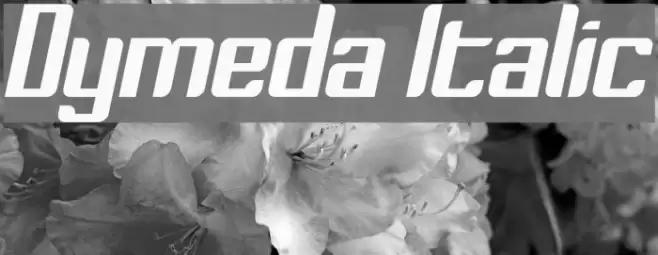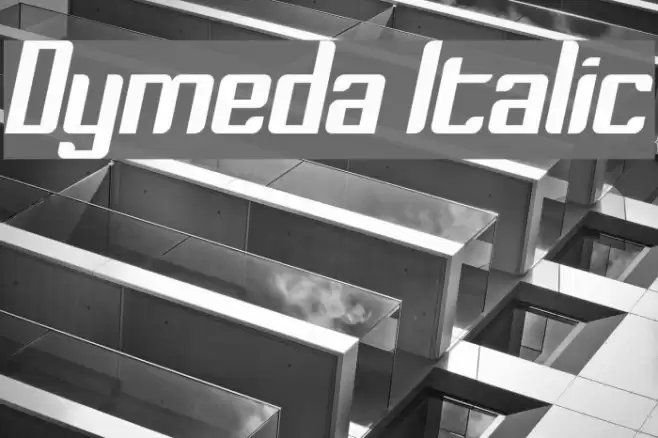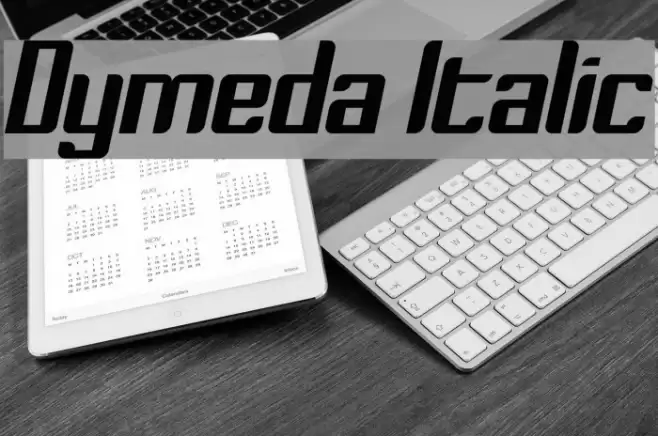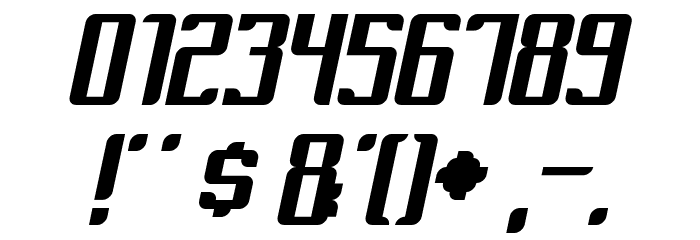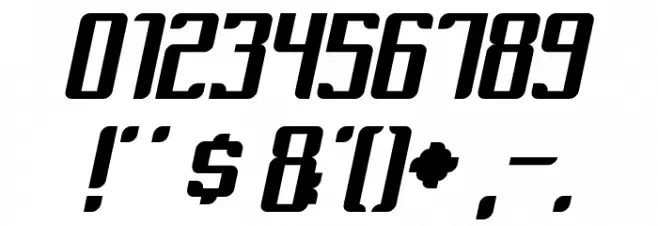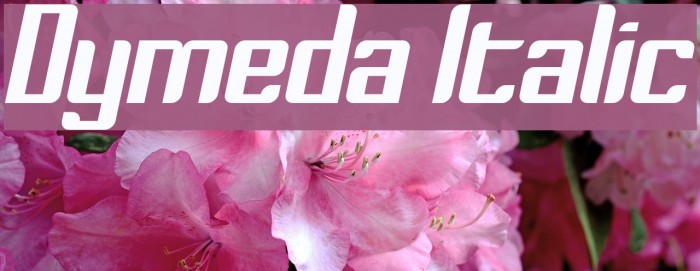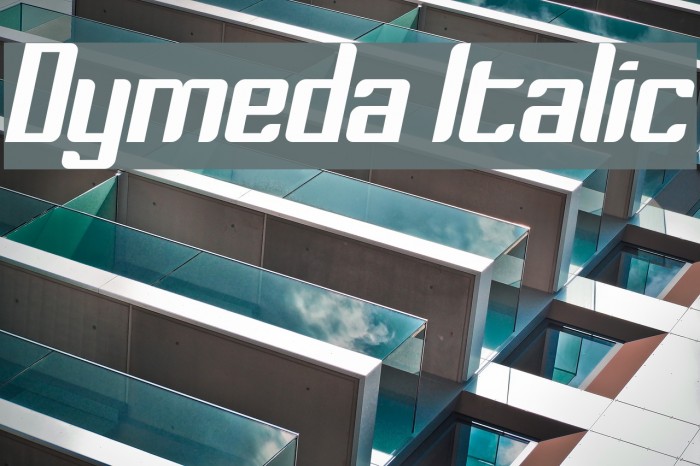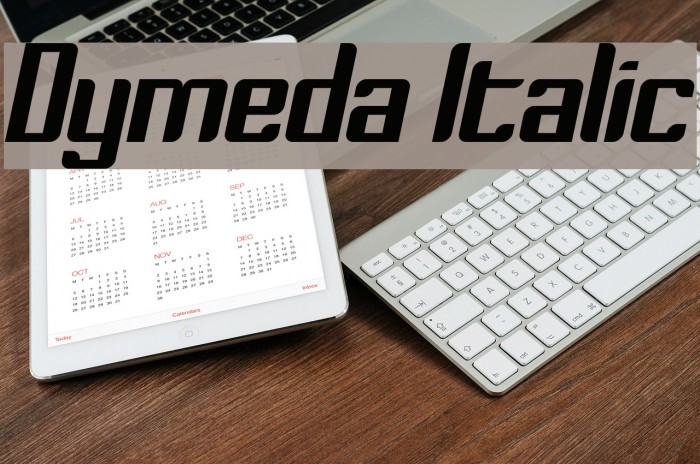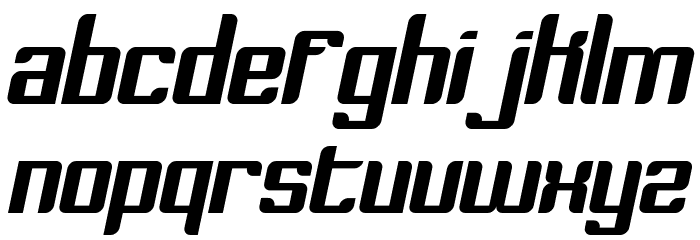
Dymeda Italic Font
Dymeda Italic Description
This font features a modern, italicized style with a strong geometric influence. The characters are bold and slightly condensed, giving them a sleek and streamlined appearance. The uppercase letters are tall and narrow, while the lowercase letters maintain a consistent height, creating a harmonious balance. The numerals are clear and distinct, matching the overall aesthetic of the alphabet. Special characters are uniquely designed to complement the font's angular and dynamic style. The font's high contrast in stroke thickness adds to its bold and impactful presence, making it suitable for attention-grabbing designs.
A modern, italicized font with bold, geometric characters and high contrast from Uncategorized fonts.
- Proposed Projects: Ideal for branding, advertising, sports team logos, and dynamic poster designs.